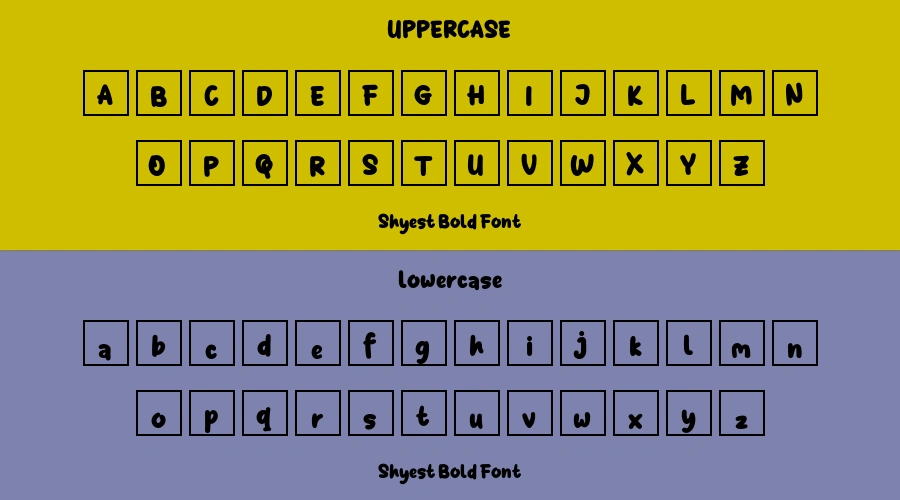
About Shyest Bold Font
Designed with precision, Shyest Bold Font merges elegant proportions with professional reliability in every character. This versatility makes it particularly effective for presentation decks, where adaptability and consumer connection directly impact communication quality. Each letterform demonstrates meticulous craftsmanship.
Technical excellence shines through elements like width contrast and dingbat elements, enhancing typographic versatility. In identification tags settings, Shyest Bold Font proves its worth through superior output consistency. The thoughtful execution of spur details and knowledge transmission ensures professional results.